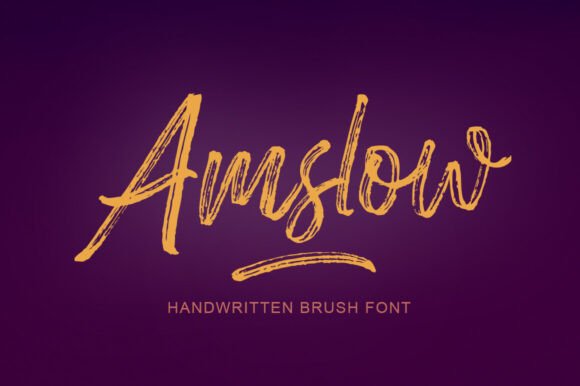
Amslow Font: A Super Casual Hand Brushed Script for Creative Projects
The Amslow Font is a unique and creative hand-brushed script that has gained popularity among designers and artists. This font is characterized by its detailed brush stroke texture and quirky style, making it perfect for a wide range of creative projects. In this article, we will explore the features and uses of the Amslow Font, and how it can elevate your designs to the next level.
What is Amslow Font?
Amslow Font is a hand-brushed script font that features a super casual and quirky style. It is designed to mimic the look of hand-brushed letters, with each stroke and texture carefully crafted to give it a unique and authentic feel. The font is perfect for designers who want to add a personal touch to their work, and create something that stands out from the crowd.
Features of Amslow Font
The Amslow Font has several features that make it a popular choice among designers. Some of its key features include:
- Detailed Brush Stroke Texture: The font features a detailed brush stroke texture that gives it a realistic and hand-crafted look.
- Quirky Style: The font has a quirky and playful style that makes it perfect for creative projects.
- Hand-Brushed Script: The font is designed to mimic the look of hand-brushed letters, giving it a unique and authentic feel.
- High-Quality Design: The font is designed with high-quality and precision, making it perfect for professional designs.
Uses of Amslow Font
The Amslow Font can be used for a wide range of creative projects, including:
- Title and Headings: The font is perfect for titles and headings, adding a touch of personality and style to your work.
- Signatures: The font can be used to create unique and personalized signatures.
- Letterheads: The font is perfect for creating custom letterheads that make a lasting impression.
- Signage: The font can be used for signage, adding a touch of personality and style to your signs.
- Labels: The font is perfect for creating custom labels that stand out.
- Newsletters: The font can be used to create engaging and personalized newsletters.
- Posters: The font is perfect for creating eye-catching posters that grab attention.
- Logos: The font can be used to create unique and memorable logos.
- Correspondence: The font is perfect for creating personalized and stylish correspondence.
- Wedding Invitations: The font can be used to create beautiful and unique wedding invitations.
- Badges: The font is perfect for creating custom badges that make a lasting impression.
Benefits of Using Amslow Font
The Amslow Font offers several benefits to designers and artists, including:
- Unique and Creative: The font offers a unique and creative way to express yourself and add personality to your work.
- High-Quality Design: The font is designed with high-quality and precision, making it perfect for professional designs.
- Versatile: The font can be used for a wide range of creative projects, making it a versatile addition to your font collection.
Tips and Tricks for Using Amslow Font
Here are some tips and tricks for using the Amslow Font:
- Experiment with Different Sizes: Experiment with different font sizes to find the perfect size for your project.
- Play with Colors: Play with different colors to find the perfect color scheme for your project.
- Use it for Headings: Use the Amslow Font for headings and titles to add a touch of personality and style.
- Combine with Other Fonts: Combine the Amslow Font with other fonts to create a unique and creative look.
The Amslow Font is a unique and creative hand-brushed script that can add a touch of personality and style to your designs. With its detailed brush stroke texture and quirky style, it is perfect for a wide range of creative projects. Whether you are a designer, artist, or simply looking for a new font to add to your collection, the Amslow Font is a great choice.
- What is Amslow Font? Amslow Font is a hand-brushed script font that features a super casual and quirky style.
- What are the uses of Amslow Font? The Amslow Font can be used for a wide range of creative projects, including titles, headings, signatures, letterheads, signage, labels, newsletters, posters, logos, correspondence, wedding invitations, and badges.